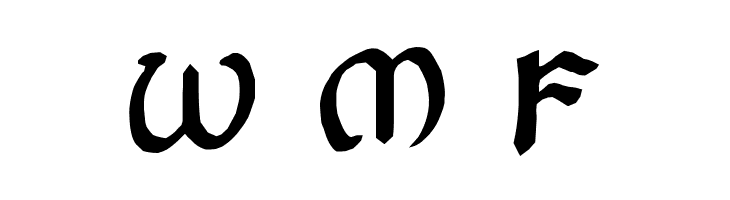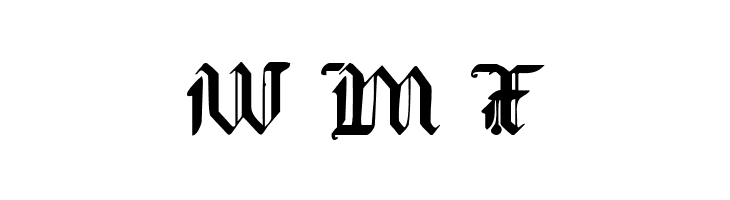
A bold, italicized 3D font with a futuristic and angular design.
A playful, bubble-like decorative font with interconnected circular elements.
A bold, geometric outline font with a futuristic and playful style.
A bold slab serif font with strong, block-like serifs and a modern yet classic appeal.
A bold, geometric, and condensed font with a modern, impactful style.
A modern, italicized font with a sleek, futuristic design.
A bold, futuristic font with a geometric and digital aesthetic.
A futuristic, geometric font with clean lines and angular shapes.
An elegant, calligraphic font with ornate, flowing strokes and balanced proportions.
A bold, blackletter-style font with sharp, angular lines and intricate detailing.
A bold, condensed Blackletter-style font with intricate, gothic-inspired characters.
A bold blackletter font with sharp, angular lines and historic elegance.
An ornate and decorative font blending traditional and modern styles.
A 3D effect font with bold outlines and a decorative, modern style.
A whimsical, decorative font with playful patterns and bold artistic flair.
A bold, Gothic-inspired font with strong serifs and high contrast strokes.
An ornate Blackletter font with sharp, angular lines and gothic flourishes.
An ornate and decorative font with intricate flourishes and sharp serifs.
An ornate Gothic-inspired font with bold, angular lines and intricate flourishes.
A bold, ornate Blackletter font with a medieval aesthetic.
A decorative font with elaborate swirls and gothic-inspired embellishments.
A bold, gothic-style font with intricate, medieval-inspired letterforms.
A dramatic and elegant font with sharp serifs and flowing curves, ideal for fantasy themes.
A bold, geometric sans-serif font with tall, narrow letterforms.
A sleek, italicized font with smooth curves and a modern aesthetic.
A modern, geometric unicase font with elongated, narrow characters.
A tall, narrow, and modern font with a sleek, elongated design.